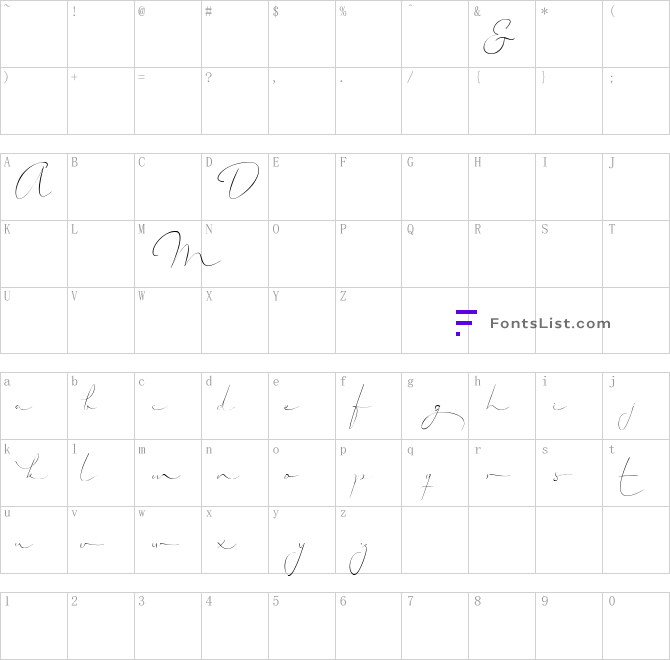
- Font Name:Anomaly Demo
Anomaly.ttf is a very beautiful artistic font, Anomaly.ttf is widely used in the design and printing of various books and pictures,Anomaly.ttf has a strong visual impact,Anomaly.ttf is a commonly used font in newspapers, magazines and books, and is used in posters, e-commerce Poster design, store design, logo design, font design and other fields.Anomaly.